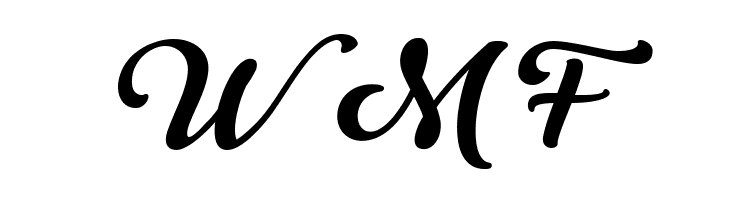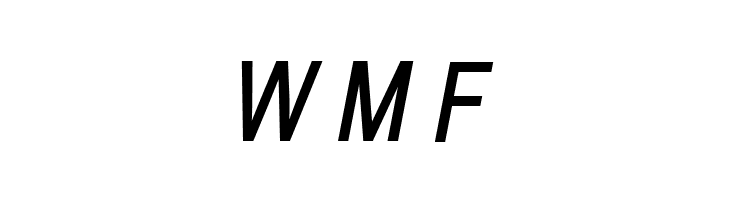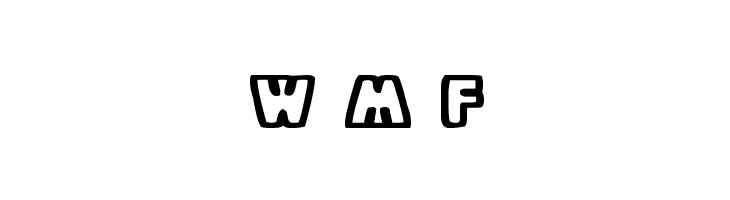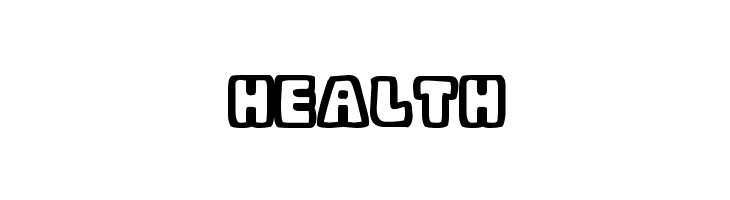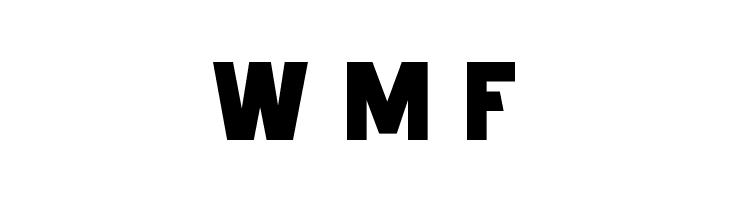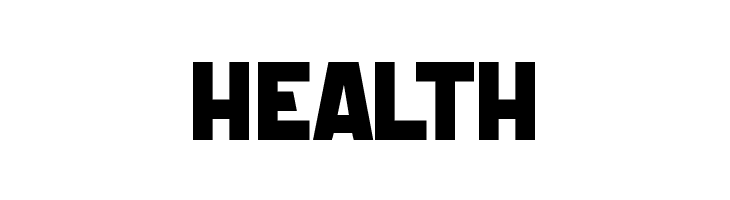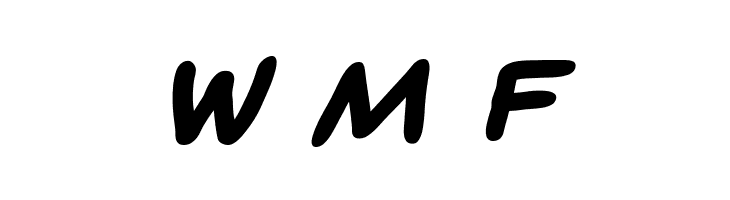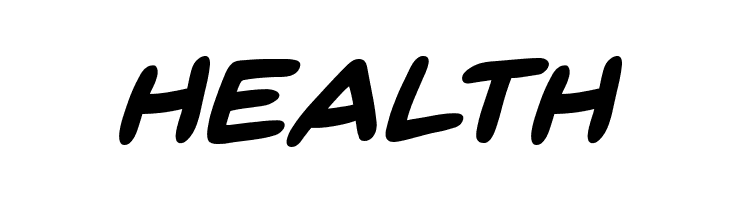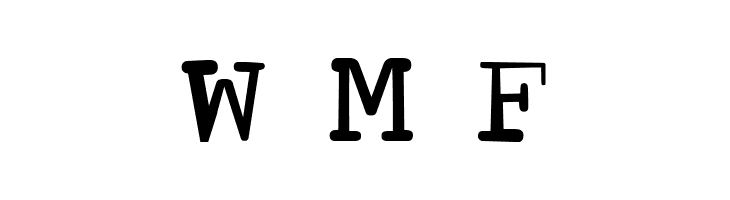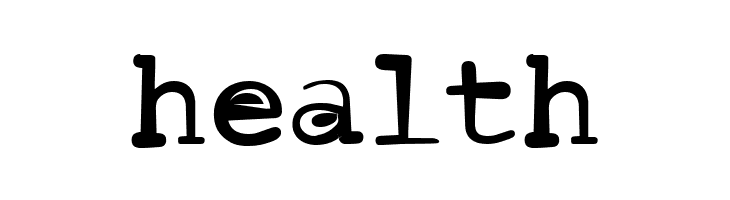
• Babell Bold
A bold, modern font with thick, uniform strokes and high contrast, ideal for headlines.
• BabelSans-Bold
A bold, modern sans-serif font with clean lines and uniform stroke width.
• BabelSans-BoldOblique
A bold, oblique sans-serif font with a modern and dynamic style.
• Babiole Bold
A playful, bold font with rounded edges and a whimsical style.
• Baby Eskimo Kisses Bold
A bold, playful font with thick, rounded characters and a cartoon-like appearance.
• Baby Moons Bold
A bold, playful serif font with rounded serifs and whimsical design elements.
• Baby Superhero Bold
A bold, playful font with rounded edges and consistent stroke width.
• Baby Superhero Bold Italic
A bold, italicized font with a modern, playful style and unique curvature.
• Back Issues BB Bold Italic
A bold, italicized font with a dynamic and energetic style.
• Back to Black Bold Demo
A bold, cursive font with elegant curves and expressive flourishes.